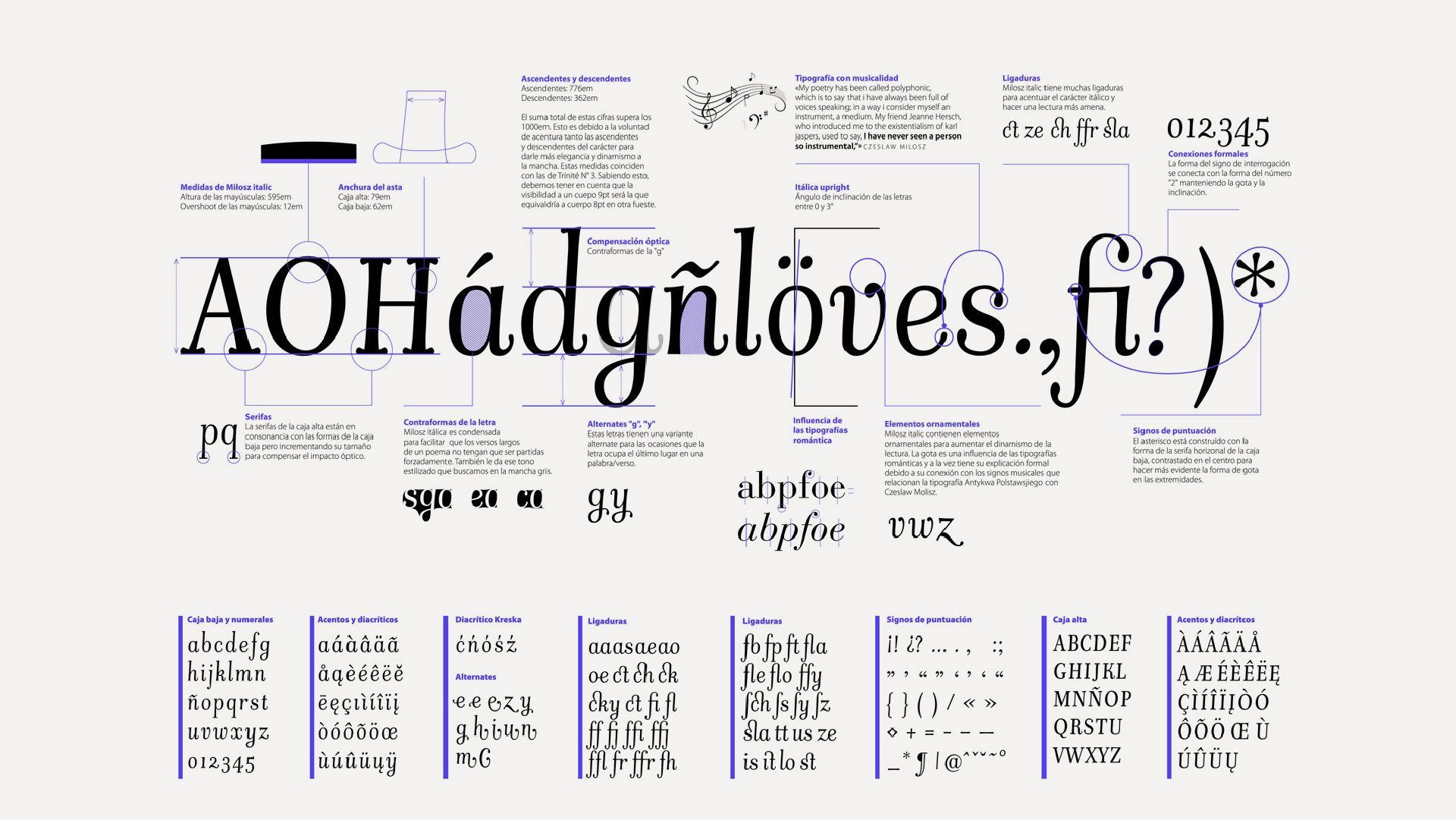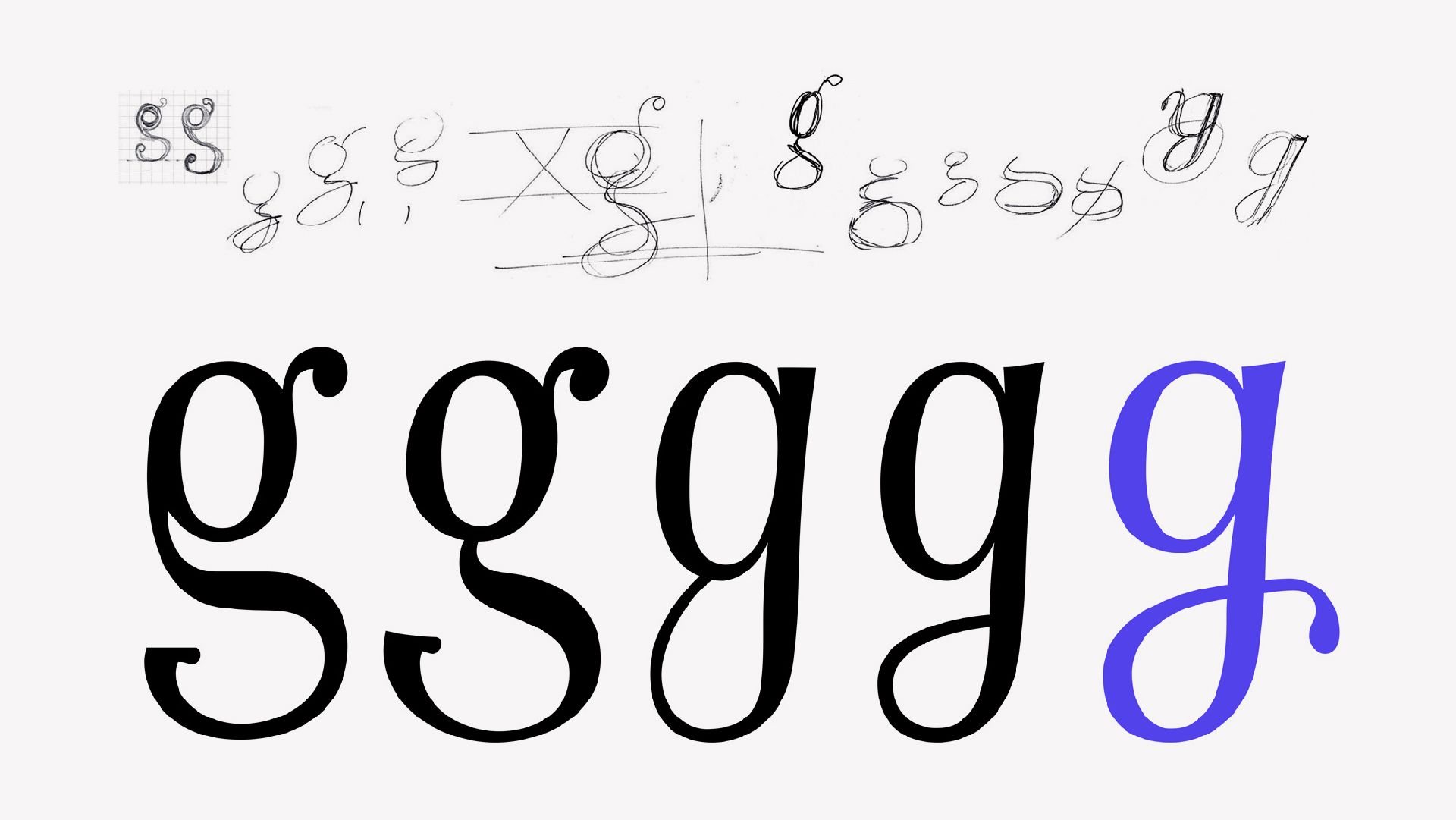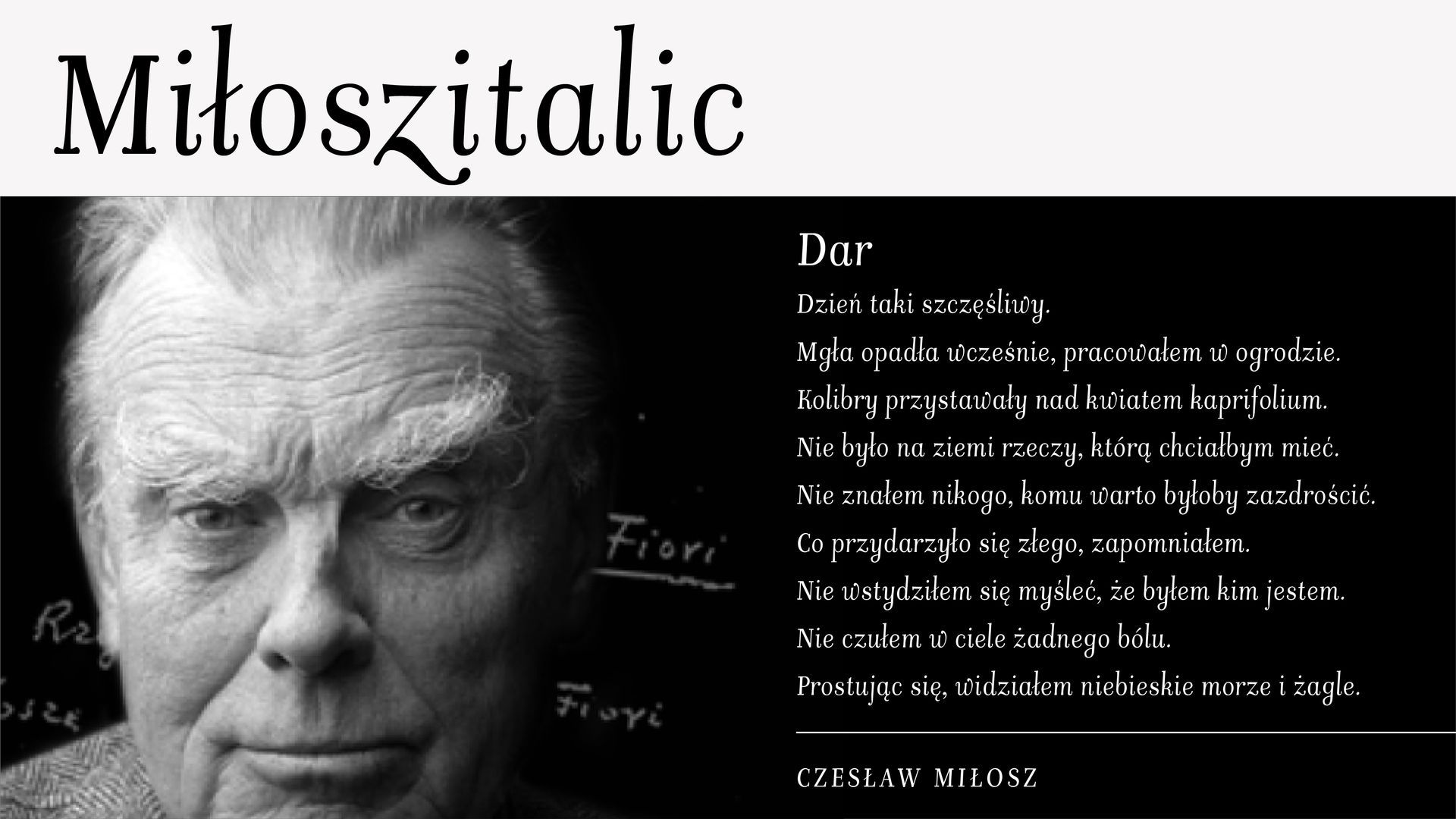
Miłosz Upright Italic | Custom Font
Purple title card with white “Milosztalic” text and a small subtitle centered below
Decorative typography collage with large central serif word and many small text blocks in black and purple on white.
White cursive word “estación” on a purple background.
Stylized lowercase letters: gray script-like text above, large black and blue “g” characters below
White “camping” text on a purple background.
White “coexist” text on a purple background.
White “reactor” text on a purple background.
White cursive “jeffrey” on a purple background
Sample Polish calligraphy sheet with blue serif title “Czesław Miłosz” and alphabet practice lines.
White “kitsch” text on a purple background
Black-and-white font sample sheet showing lowercase, uppercase, accented letters, numbers, and symbols.
Purple background with the word “Convey” in white script.
Custom Type Design
Typeface design to commemorate the centennial of the birth of Czeslaw Miłosz (poet, writer, translator).
Miłosz Italic was born during the Postgraduate Course of Advanced Typography, at Eina School of Design in Barcelona, 2011. It is an upright italic with multiple ligatures and diacritics.
Type designer: Maria Montes
Miłosz Upright Italic FONT IN USE
Black-and-white portrait of an elderly man beside the title “Mitoszitalic” and a block of text.